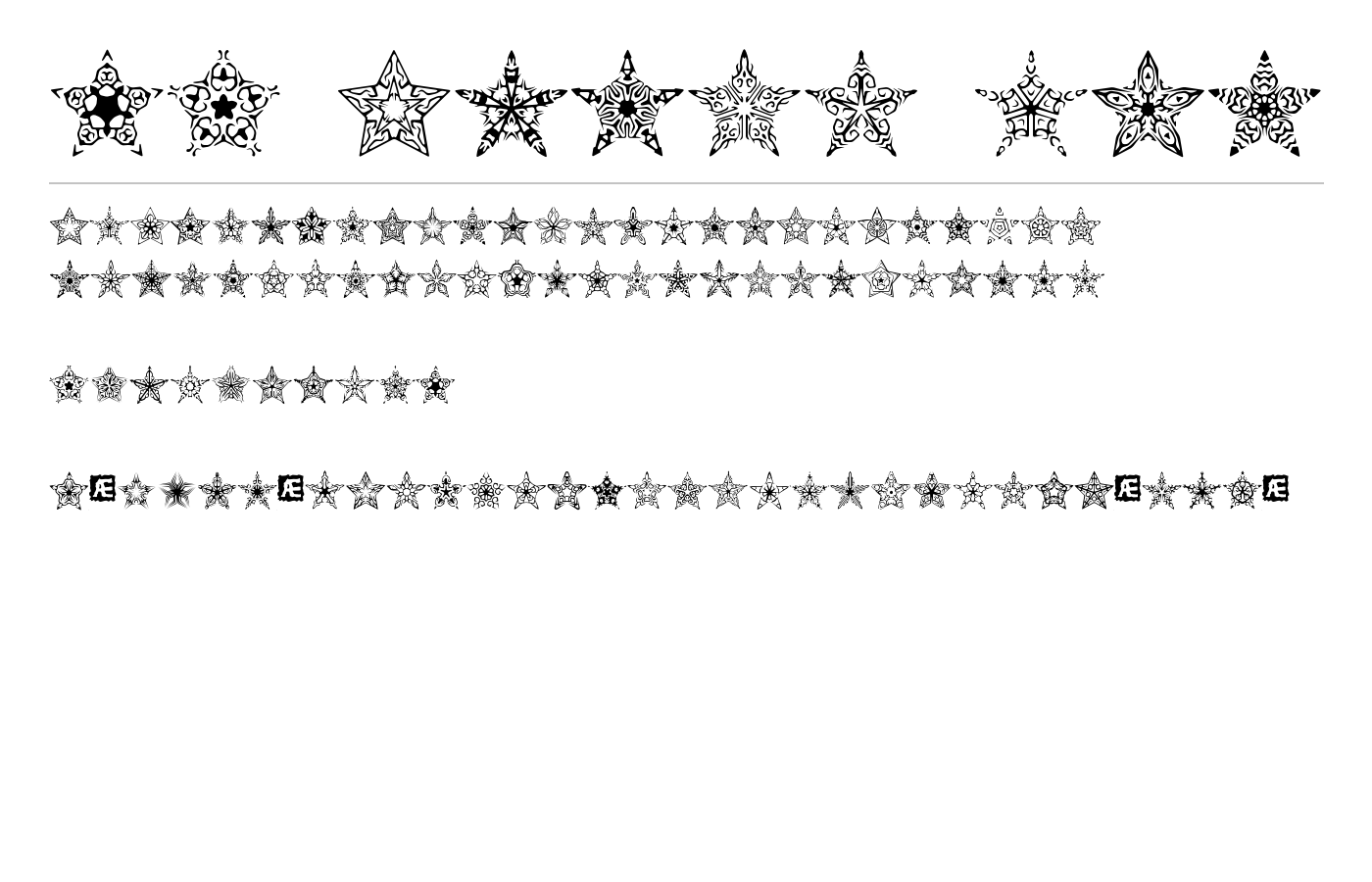
90 Stars BRK is a decorative symbol font featuring an intricate collection of star-shaped glyphs with various ornamental patterns and styles. Its detailed and artistic designs give it a festive, elegant, and whimsical feel, making it ideal for creative projects that need a unique accent, such as holiday themes, invitations, or decorative branding elements. This font works best in display uses where its elaborate details can be appreciated up close.
90 Stars BRK Font